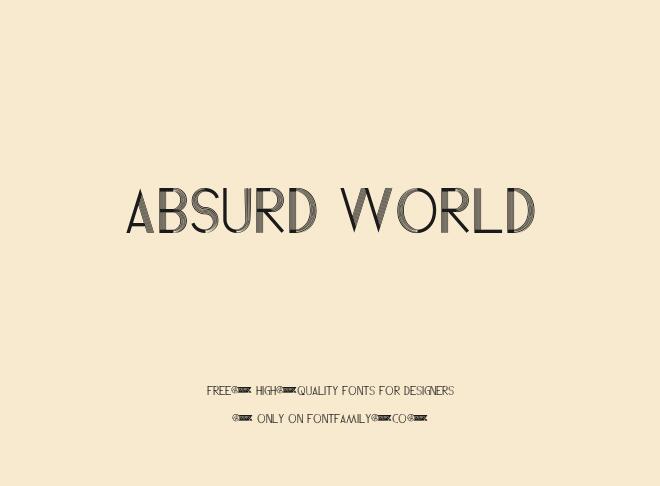
Absurd World Font
Absurd World Font is a unique, playful typeface designed by Creative Foundry. It combines futuristic and modern elements, making it a standout choice for display purposes. Its bold characters are perfect for creative projects like posters, banners, and logos. The font has a distinctive style that sets it apart from traditional typefaces, and its quirky, avant-garde nature makes it a great choice for those looking to add a touch of modernity and fun to their designs. In comparison to other fonts, Absurd World Font offers a unique blend of style and readability. Its clean lines and well-balanced proportions ensure that it remains legible even at smaller sizes. This font is a perfect choice for designers looking to make a bold statement with their work.